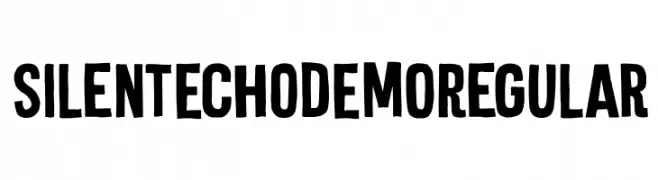
( Hanoded - David Kerkhoff - www.hanodedfonts.com )
A bold, handcrafted font with a rugged, organic feel and decorative tree elements.
( JOEBOB graphics - Joe vanderHam - www.joebob.nl )
A bold, brush-style font with an expressive, handcrafted look.
( JibbaJabba Fonts - Jibba Jabba - pages.suddenlink.net/jasonarthur/ )
A bold, italic typewriter-style font with a distressed, vintage look.
( Julia Contreiras - juliacontreiras.wix.com/contreiras )
A rugged, distressed font with a vintage, industrial feel.
( Julia Contreiras - juliacontreiras.wix.com/contreiras )
A distressed, textured font with a vintage, handcrafted appearance.
( Kautsar Rahadi - dribbble.com/kautsarrahadi )
A bold, rough-textured font with a vintage, handcrafted feel.
( Lettersiro - Shiro Ngampus - creativemarket.com/Lettersiro )
A bold, textured vintage font with a distressed, rustic look.
( Lettersiro Studio - Muhammad Sirojuddin - creativemarket.com/Lettersiro )
A bold, textured font with a distressed, vintage style.
( Manhatoone Script font )
A bold, vintage brush script with a distressed texture.
( Matt Bruinooge )
A sketch-like, hand-drawn font with dynamic, textured strokes.